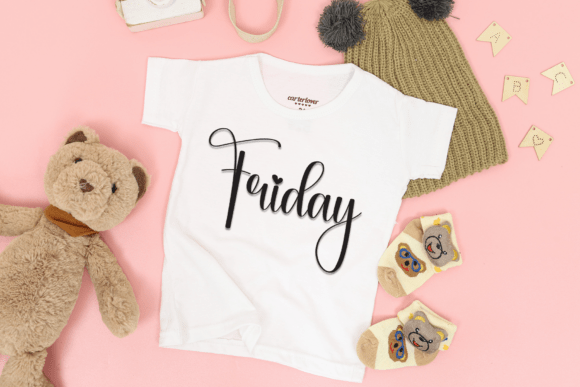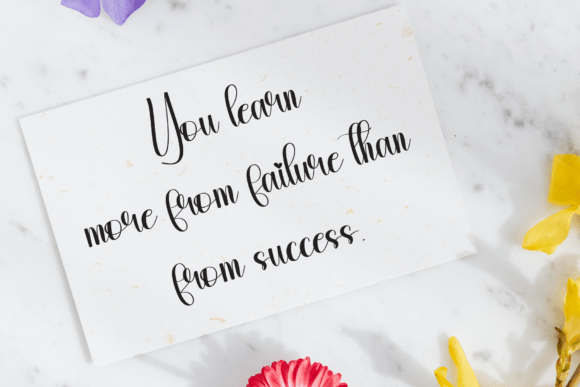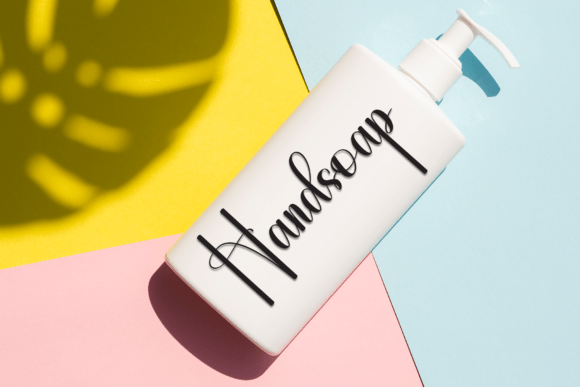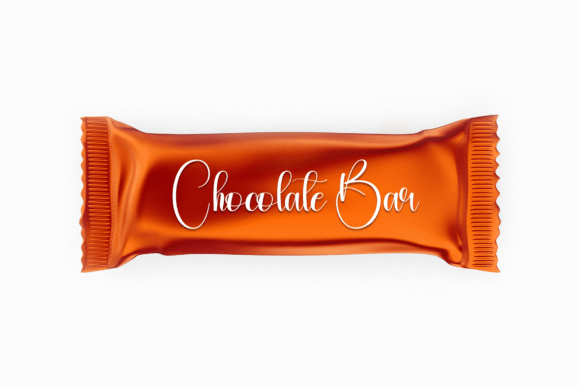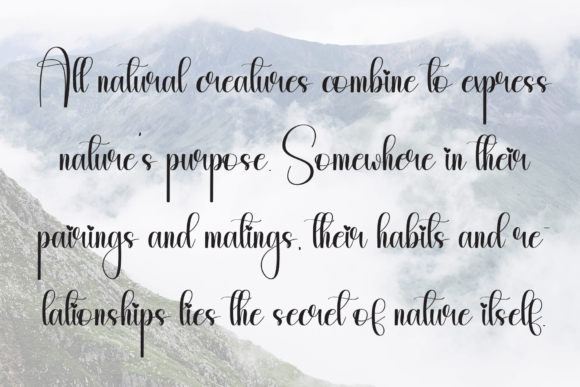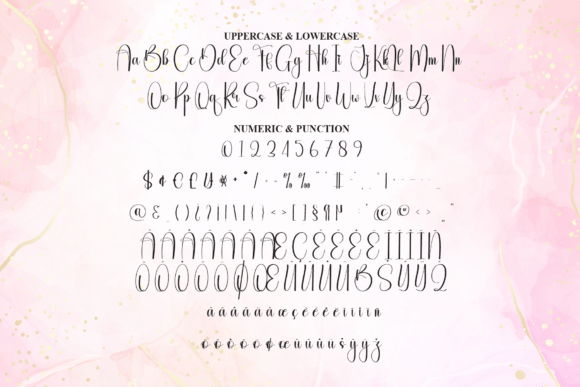
Introducing Barbie Font: Elevate Your Designs with Artistic Flair and Contemporary Elegance
Are you a designer or crafter looking for a font that embodies both artistic flair and modern sophistication? Look no further than the Barbie Font. This stylish script font is designed to bring a touch of elegance and creativity to your designs, making it perfect for a wide range of applications, from logos and invitations to packaging and social media graphics.
The Essence of Hand-Painted Calligraphy with a Modern Twist
The Barbie Font is inspired by the fluidity and expressiveness of hand-painted calligraphy. Its fluid brush strokes, dynamic curves, and expressive letterforms capture the essence of this art form, while its modern twist gives it a fresh and contemporary feel. The result is a font that is both visually striking and versatile, making it perfect for designers and crafters who want to add a creative and sophisticated touch to their work.
Key Features of the Barbie Font
- Fluid Brush Strokes: The Barbie Font features fluid brush strokes that give it a natural, hand-painted feel. This makes it perfect for designs that require a personal touch, such as invitations, packaging, and social media graphics.
- Dynamic Curves: The font’s dynamic curves add a sense of movement and energy to your designs, making them more engaging and visually appealing.
- Expressive Letterforms: Each letterform in the Barbie Font is carefully crafted to convey a sense of elegance and sophistication, making it perfect for logos, branding, and other high-end designs.
- Modern Twist: The font’s modern twist gives it a fresh and contemporary feel, making it perfect for designers and crafters who want to stay ahead of the curve.
The Barbie Font is incredibly versatile, making it perfect for a wide range of design applications. Here are just a few examples:
- Logos and Branding: The font’s elegant and sophisticated feel makes it perfect for logos, branding, and other high-end designs.
- Invitations and Stationery: The font’s fluid brush strokes and dynamic curves make it perfect for invitations, stationery, and other paper goods.
- Packaging: The font’s modern twist and expressive letterforms make it perfect for packaging designs that require a touch of elegance and sophistication.
- Social Media Graphics: The font’s versatility and visual impact make it perfect for social media graphics, including Facebook posts, Instagram stories, and more.
Why Choose the Barbie Font?
So why choose the Barbie Font for your next design project? Here are just a few reasons:
- Unique and Creative: The Barbie Font is a unique and creative font that will help your designs stand out from the crowd.
- Versatile: The font’s versatility makes it perfect for a wide range of design applications, from logos and branding to packaging and social media graphics.
- Elegant and Sophisticated: The font’s elegant and sophisticated feel makes it perfect for high-end designs that require a touch of luxury and refinement.
In conclusion, the Barbie Font is a stylish script font that exudes artistic flair and contemporary elegance. Its fluid brush strokes, dynamic curves, and expressive letterforms make it perfect for designers and crafters who want to add a creative and sophisticated touch to their work. With its natural flow and vibrant character, this font delivers both visual impact and versatility, making it perfect for a wide range of design applications.